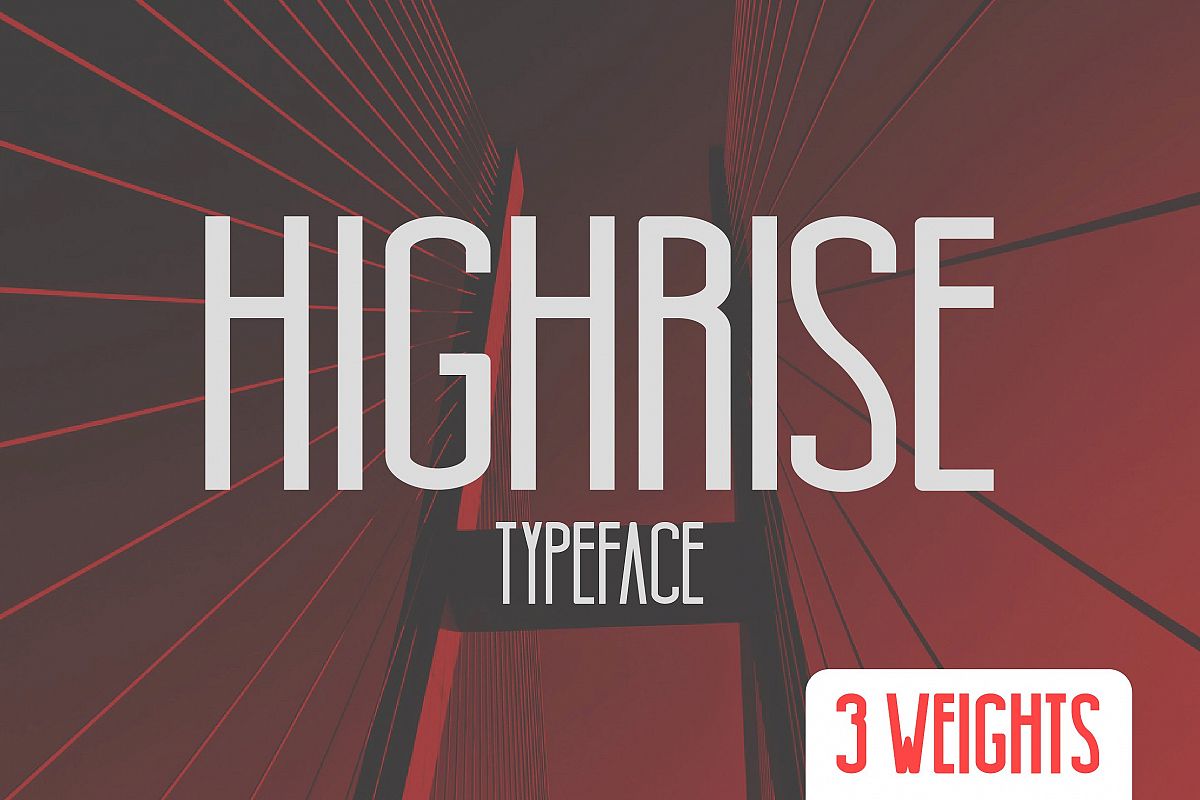
Highrise Typeface
Highrise Bold
Highrise Ligh
Highrise Regular
Highrise is a sans serif typeface based on tall architectural structures. Includes upper and lower case in 3 different weights. Enjoy!